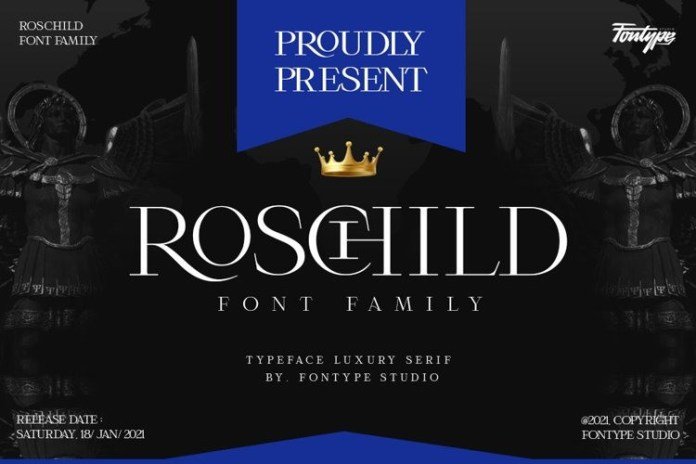
Roschild Font
This is a gorgeous uppercase serif font that will whisk you away to a place of style! It’s designed and shared by Ridwanfil. Inspired by ancient writing with a slight gothic / darkness touch but still brings a luxurious and elegant impression to every letter.